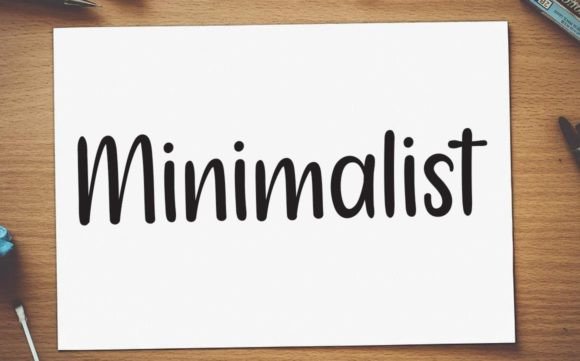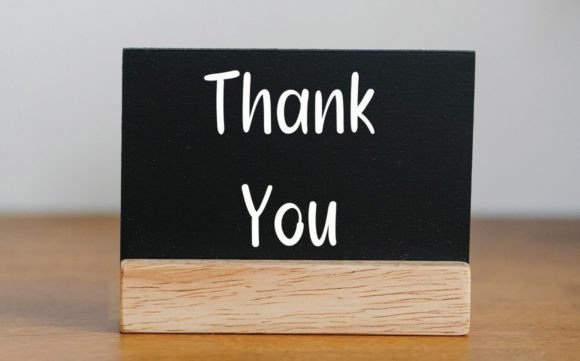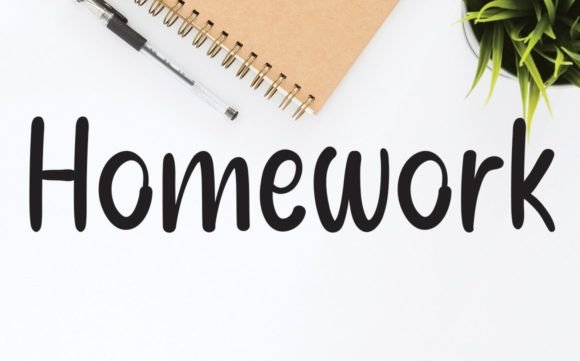
“Handmade” is a font that exudes coolness, simplicity, and playfulness. Its unique style adds a touch of creativity and character to any design project. With its versatility, “Handmade” effortlessly enhances a variety of creative concepts, elevating them to new heights and breathing life into your favorite ideas.
**Cool and Playful Aesthetics**: The font’s cool and playful aesthetics make it visually appealing and attractive. Its unconventional design and playful elements create a sense of fun and creativity, making it a perfect choice for projects that require a lighthearted and energetic vibe.
**Simplicity with Impact**: Despite its simplicity, “Handmade” carries a significant visual impact. Its straightforward yet distinctive letterforms make a statement, ensuring that your designs stand out. The font’s simplicity enhances readability while adding a touch of artistic flair.
**Versatile Application**: “Handmade” is highly versatile and adaptable to a wide range of designs. Whether used in posters, packaging, social media graphics, or branding materials, the font seamlessly integrates into different contexts. Its versatility allows it to enhance diverse creative ideas, adding a playful and creative touch to each project.
**Bringing Designs to Life**: “Handmade” has the remarkable ability to bring designs to life. Its playful and cool demeanor injects energy into your creative ideas, making them vibrant and captivating. When added to your favorite projects, this font transforms them into lively and engaging visual experiences.
In summary, “Handmade” is not just a font; it’s a creative catalyst that infuses energy and playfulness into your designs. Its cool, simple, and playful characteristics make it a perfect choice for a wide array of creative endeavors. By incorporating “Handmade” into your projects, you can elevate them to new levels, making them come alive with creativity and excitement. Let “Handmade” be the artistic spark that breathes life into your favorite creative ideas, ensuring they captivate and inspire your audience.